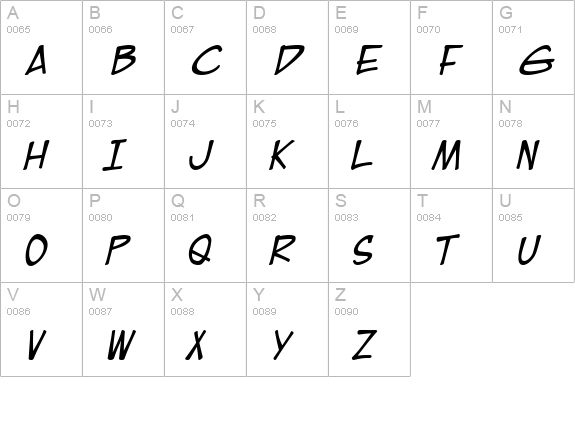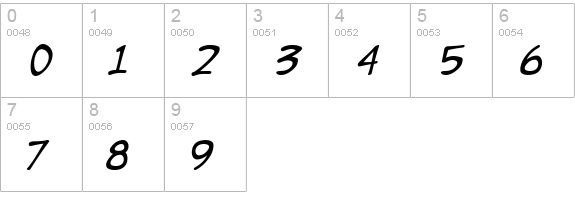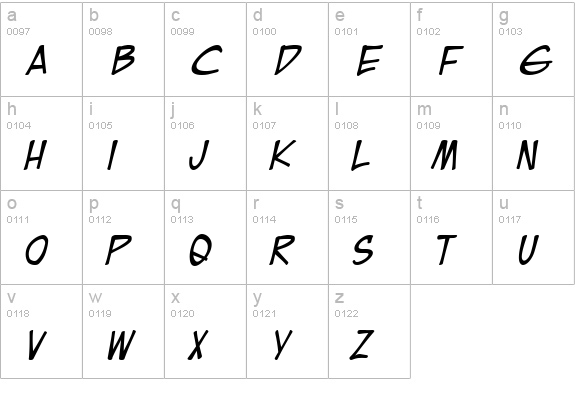
EuroComic Italic is a distinctive, italic variant in the EuroComic typeface family \xE2\x80\x94 well suited to design and typography projects.
EuroComic Italic is a dynamic and modern font that brings a unique touch to your design projects. Its sleek and stylish italicized appearance adds a sense of movement and energy to any text. The clean lines and bold strokes of EuroComic Italic make it perfect for creating eye-catching headlines, titles, or logos. What sets EuroComic Italic apart is not only its striking aesthetic, but also its accessibility. This versatile font is available for free download at FontsMarket.com. Whether you're a designer looking to add a fresh twist to your work or a business owner wanting to make a statement with your branding, EuroComic Italic is a fantastic choice. Don't miss out on this opportunity to elevate your designs with this free and impactful font.